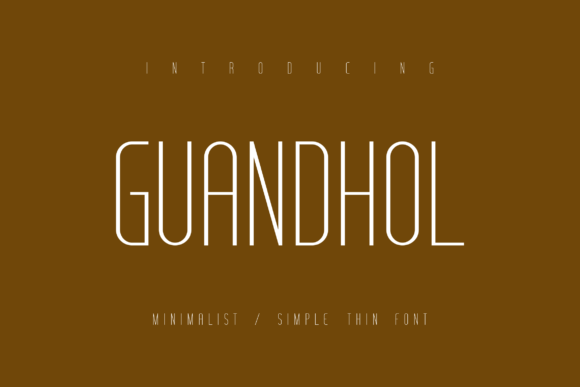
Guandhol Lite is an impactful and thin sans-serif font that’s perfect for creating a modern and minimalistic look. The letters are clean and sharp, with a sleek appearance that gives it a strong and contemporary edge. This font is perfect for anything from logos to headlines that require a bold and impactful design.